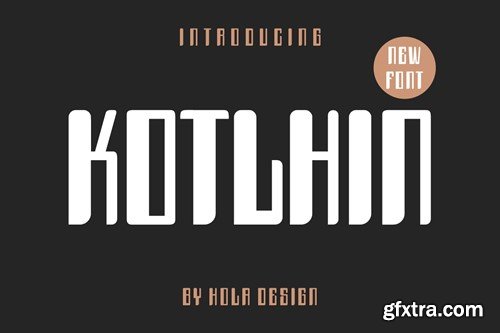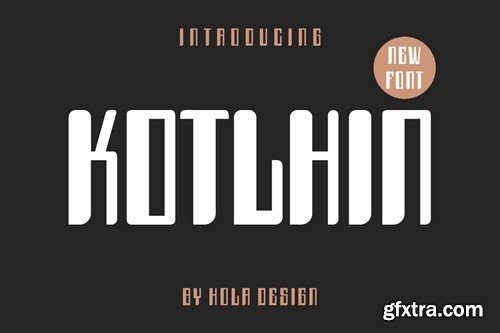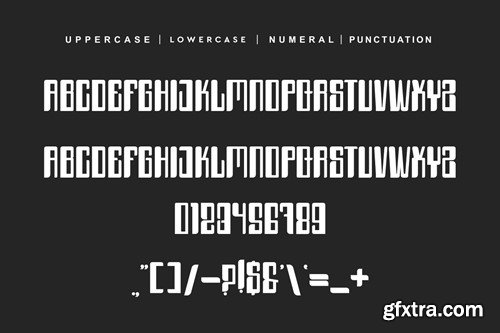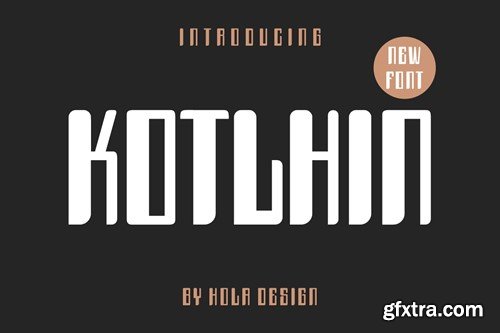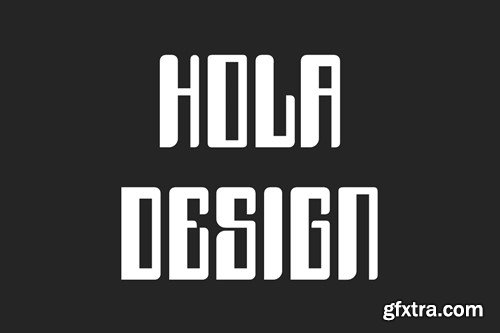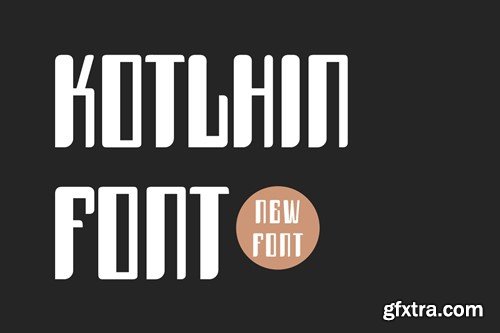
Kotlhin Font
Kotlhin Font Font is unique . Ready to use for your design like labeling, movie sceen, poster, movie title, gigs, album covers, logos, and much more. Included